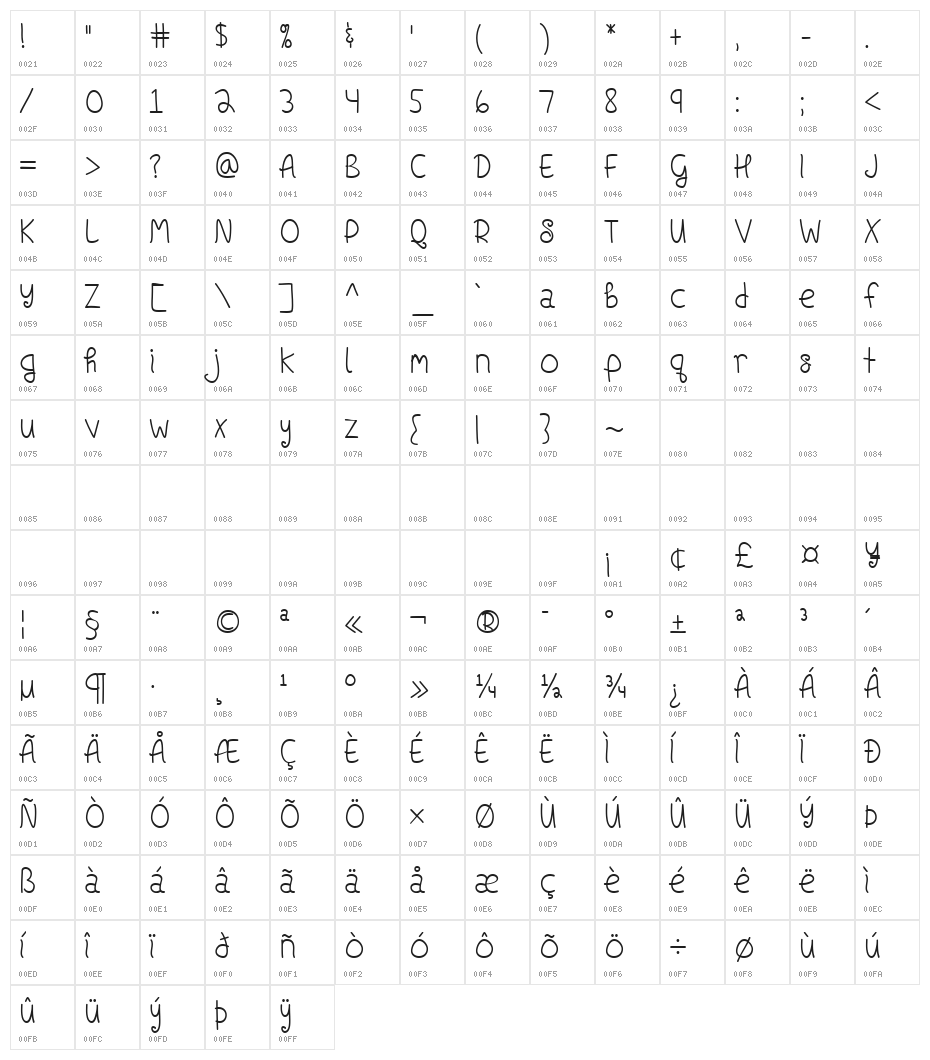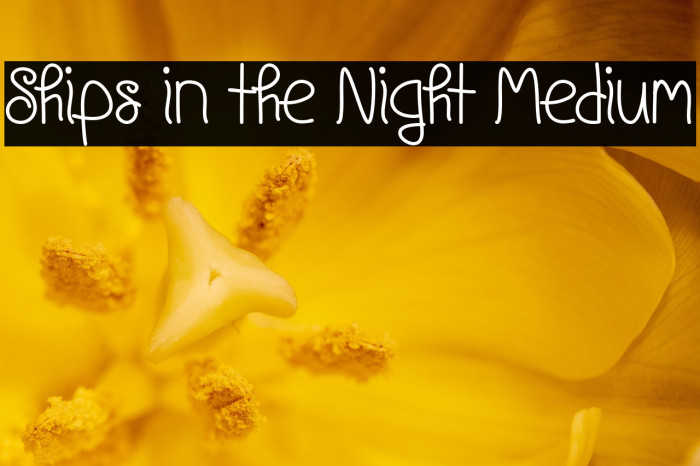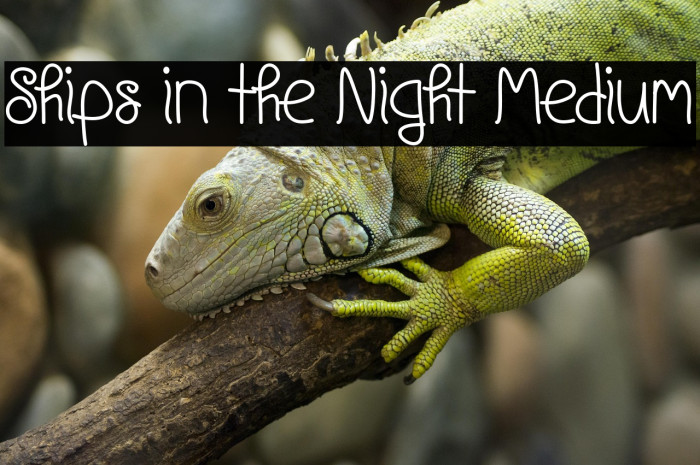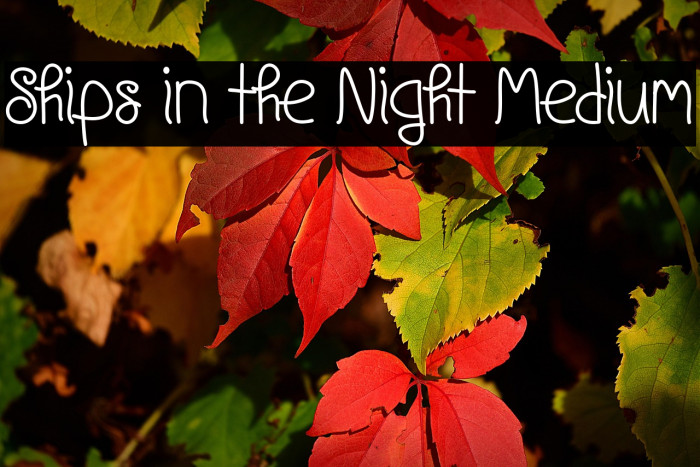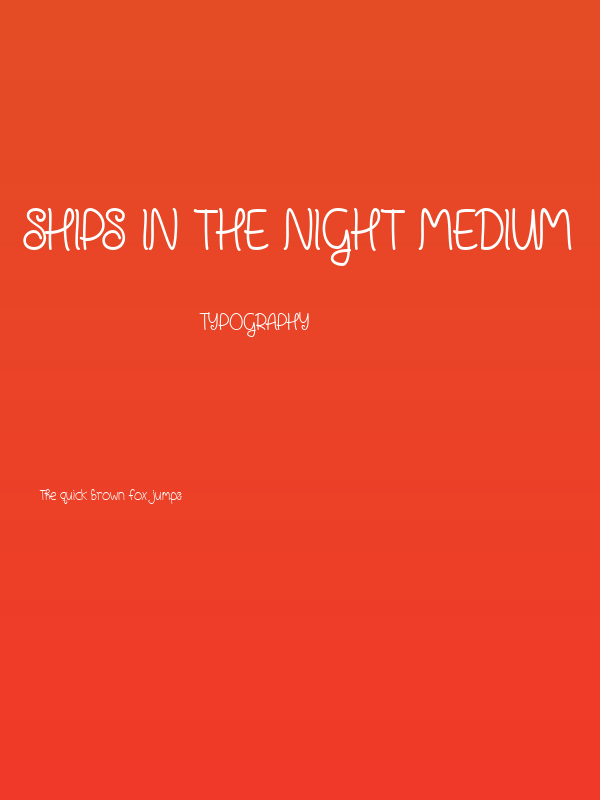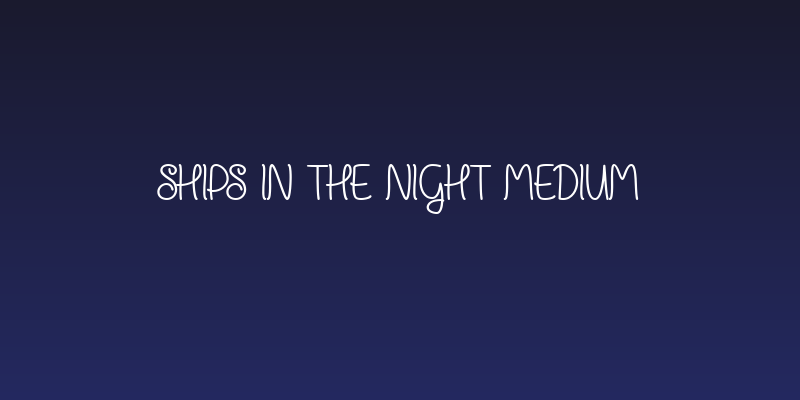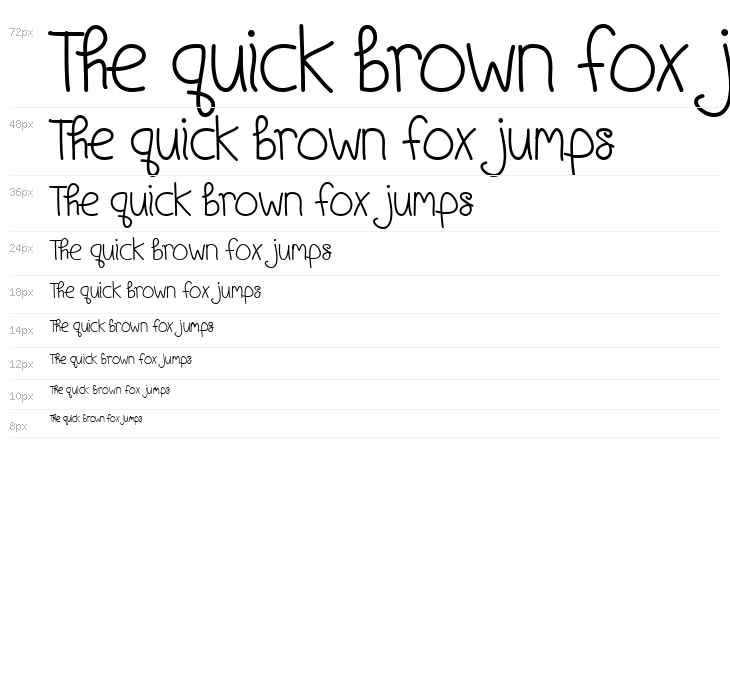
Ships in the Night Medium Font
Ships in the Night Medium Description
This font features a playful and whimsical handwritten style, characterized by its smooth, flowing curves and slightly irregular letterforms. The uppercase and lowercase letters maintain a consistent height, giving it a balanced appearance. The numerals and special characters are crafted with the same playful touch, ensuring uniformity across all glyphs. The strokes are moderately thick, providing good legibility while retaining a casual, friendly vibe. This font is ideal for projects that require a personal, approachable feel.
| Use Case | Headlines, Informal text, Branding |
| Proposed Projects | Ideal for greeting cards, children's books, casual branding, and social media graphics. |